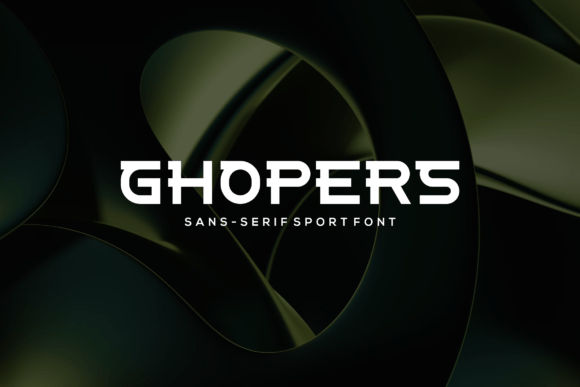
The Perfect Blend of Style and Substance: Introducing Ghopers Font
Have you ever been scrolling through your social media feed when suddenly a bold, eye-catching logo catches your attention? It’s that moment when you know you’ve seen something special. For designers, it’s the thrill of the chase – the pursuit of creating something that truly stands out. And, let me tell you, Ghopers Font is one such gem that’s sure to leave a lasting impression.
This bold and distinctive display font is specifically designed for branding projects, making it perfect for logos, sports themes, and more. Its versatility and uniqueness make it an invaluable asset for designers looking to add a touch of style to their work. With Ghopers Font, you can take your designs to the next level and make a lasting impact on your audience.
Ghopers Font Key Features
- Font Family: Ghopers Font is a sans-serif typeface designed for digital use.
- Unique Characteristics: Ghopers Font features a unique blend of modern and minimalist design elements, including clean lines, geometric shapes, and subtle texture.
Ghopers Font Review
I recently had the chance to work with the Ghopers font, and I must say it’s an interesting addition to any design project. ✨ One of the things that works well is its unique blend of modern and vintage elements, making it perfect for projects that require a touch of nostalgia.
Another strength of Ghopers is its versatility. ✨ It comes in a wide range of weights and styles, allowing you to create a consistent look across different design elements. Additionally, the font’s legibility is top-notch, making it perfect for body text or headlines.
- ⚠️ Limited support for languages other than Latin-based scripts. This may be a concern for designers working on international projects.
- ⚠️ Some users may find the font’s unique style to be overwhelming or difficult to read, especially in large quantities.
- ⚠️ The font’s weight and style options can be a bit overwhelming, making it difficult to choose the perfect combination for a project.
Overall, I would say that Ghopers is a solid addition to any designer’s toolkit. While it has its limitations, the font’s unique style and versatility make it a great choice for projects that require a touch of creativity. With some careful selection and use, Ghopers can help take your designs to the next level.
To get the most out of Ghopers Font, use it for:
- Headings and titles in your designs.
- Creating a unique and playful feel in your branding.
- Adding a touch of whimsy to your text-based designs.
Remember to experiment with different font sizes and styles to achieve the desired effect.